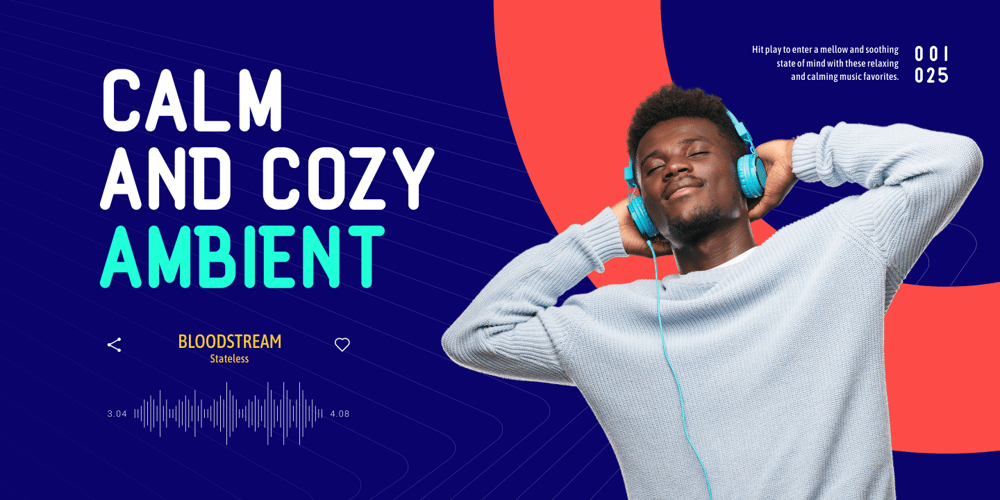
Relaunch Font Family was designed by Muhammad Hasan and published by Fype Co. Relaunch contains 1 styles and family package options. Relaunch delivers a classy, smart and timeless look. To make it look like handwriting, we created 20 ligatures and 15 alternates, so you can mix and match it to make a better style on your design.